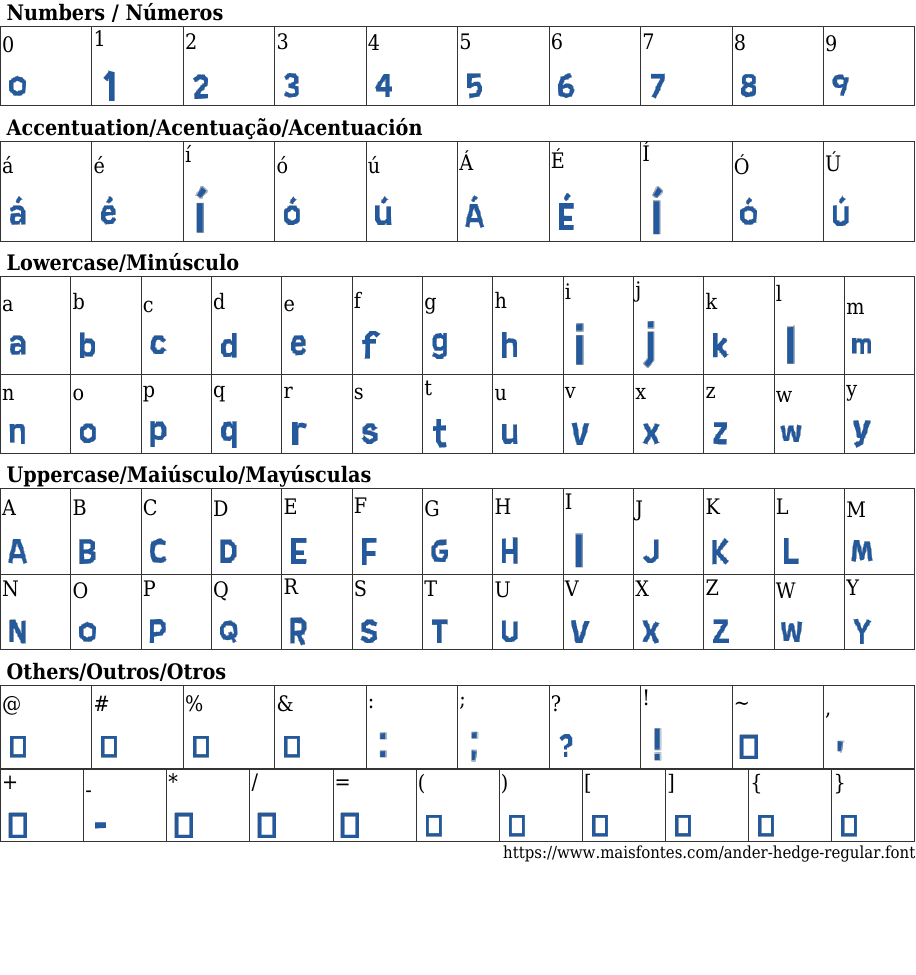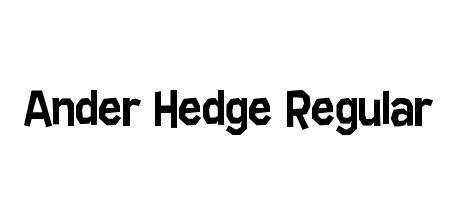
Ander Hedge Font - Web ander hedge font. Web ander hedge font is a fancy, cartoon font designed by jayvee enaguas. Ander hedge font download is available free from fontget. Web ander hedge à by jayvee enaguas. 27,765 downloads (4 yesterday) 100% free.
Ander Hedge Font - Web ander hedge font is a fancy, cartoon font designed by jayvee enaguas. Web download ander hedge font from free cdn or use it on your website as webfont. 27,765 downloads (4 yesterday) 100% free. The ander hedge font has been downloaded 5,487 times. Ander hedge font download is available free from fontget.
Ander Hedge Font - Web download ander hedge font from free cdn or use it on your website as webfont. Ander hedge font is free for both personel and commercial usages. Web download and install the ander hedge font by grandoplex productions. The ander hedge font has been downloaded 5,487 times. Web ander hedge font is a fancy, cartoon font designed by jayvee enaguas.
Ander Hedge Font - Web ander hedge à by jayvee enaguas. Ander hedge font download is available free from fontget. Ander hedge is a free font for. 27,765 downloads (4 yesterday) 100% free. Web ander hedge font is a fancy, cartoon font designed by jayvee enaguas.
Ander Hedge Font - Ander hedge is a free font for. 27,765 downloads (4 yesterday) 100% free. Web ander hedge à by jayvee enaguas. Web ander hedge font is a fancy, cartoon font designed by jayvee enaguas. Ander hedge font is free for both personel and commercial usages.
Ander Hedge Font - Web download ander hedge font from free cdn or use it on your website as webfont. Ander hedge is a free font for. Web ander hedge à by jayvee enaguas. Ander hedge font is free for both personel and commercial usages. The ander hedge font has been downloaded 5,487 times.
Ander Hedge Font - Web ander hedge à by jayvee enaguas. 27,765 downloads (4 yesterday) 100% free. Web download ander hedge font from free cdn or use it on your website as webfont. Web download and install the ander hedge font by grandoplex productions. Web ander hedge font.
Ander Hedge Font - Web download and install the ander hedge font by grandoplex productions. Web download ander hedge font from free cdn or use it on your website as webfont. Web ander hedge font is a fancy, cartoon font designed by jayvee enaguas. Ander hedge is a free font for. Ander hedge font download is available free from fontget.
Ander Hedge Font - Web ander hedge à by jayvee enaguas. Ander hedge font is free for both personel and commercial usages. Ander hedge is a free font for. 27,765 downloads (4 yesterday) 100% free. Web download and install the ander hedge font by grandoplex productions.